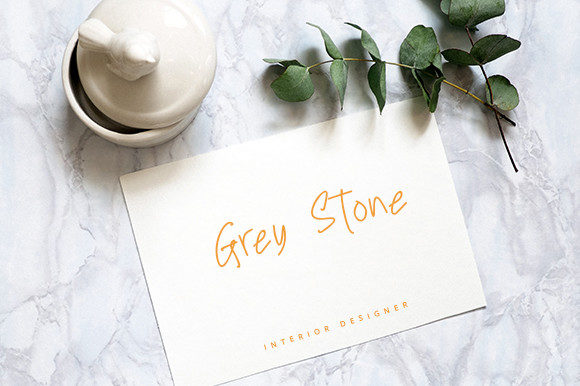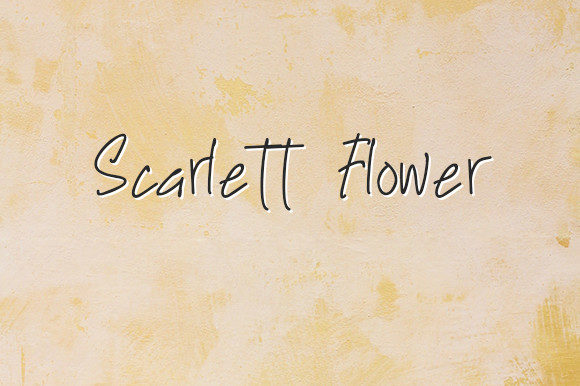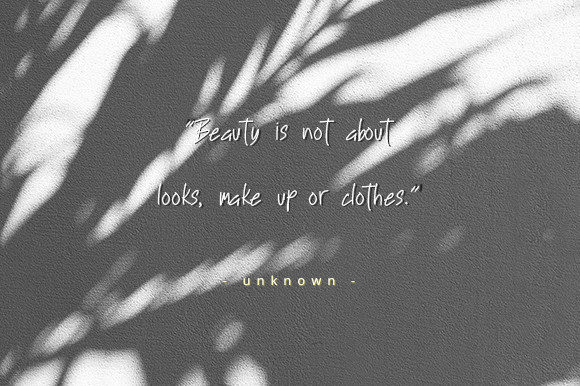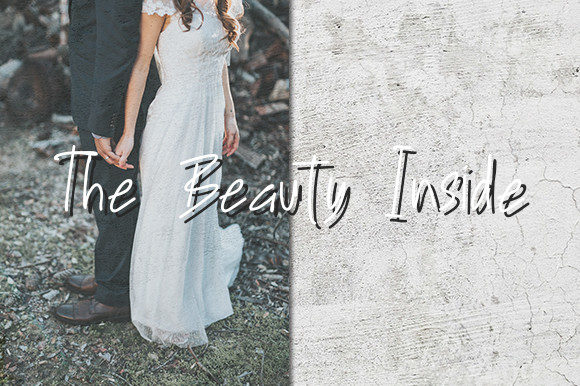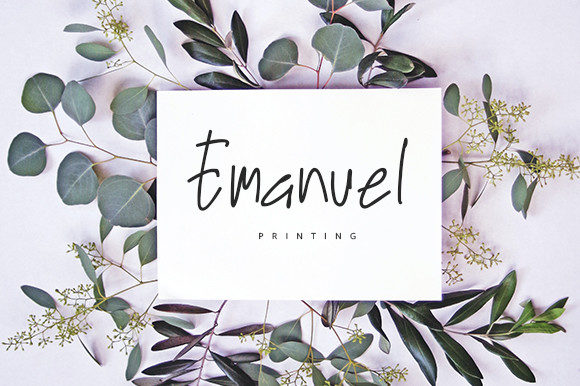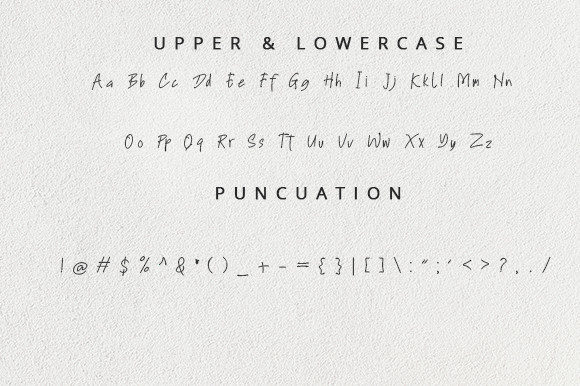
Galvallumm Font
About Galvallumm Font
“Galvallumm” is a charming and eccentric handwritten font designed specifically for packaging products, invitation cards, flyers, mockups, event posters, and any project in need of a high-quality aesthetic. This font exudes a quirky personality that sets it apart, making it an ideal choice for a diverse range of design purposes. Its unique character adds a touch of beauty and balance to a wide array of creative endeavors.
The distinctiveness of “Galvallumm” shines through, making it particularly suited for packaging that seeks to stand out on shelves, as well as for event materials that require attention-grabbing visuals. Its versatility allows it to seamlessly adapt to both large and varied design contexts, demonstrating its capacity to enhance any project it graces.
“Galvallumm” becomes a valuable tool in your creative arsenal, adding a distinctive touch that resonates with your audience. Its balanced character ensures that it blends harmoniously with other design elements, creating a visually pleasing composition. Whether you’re designing an invitation, a flyer, or a product package, this font adds a layer of high-quality vibes that can leave a lasting impact.
By incorporating “Galvallumm” into your projects, you’re embracing its quirky charm and its ability to infuse a sense of uniqueness into your designs. Its versatile nature and distinctive character make it a valuable asset for any designer seeking to create standout visuals.